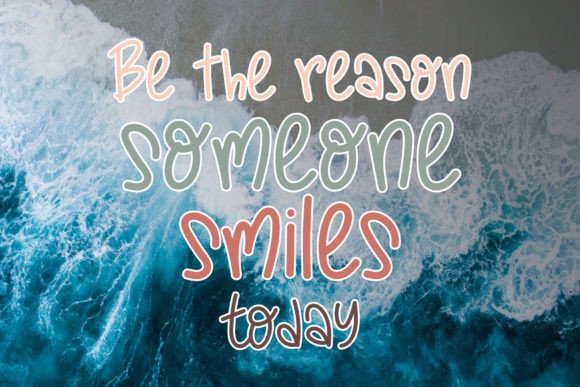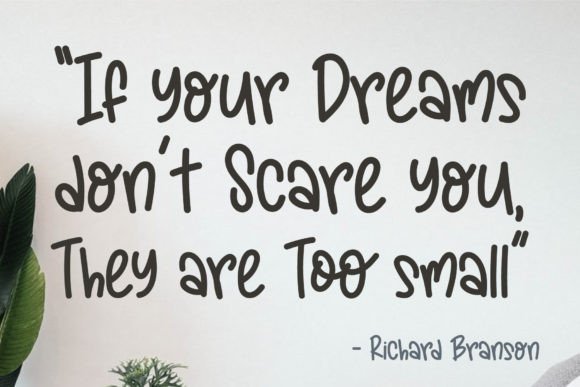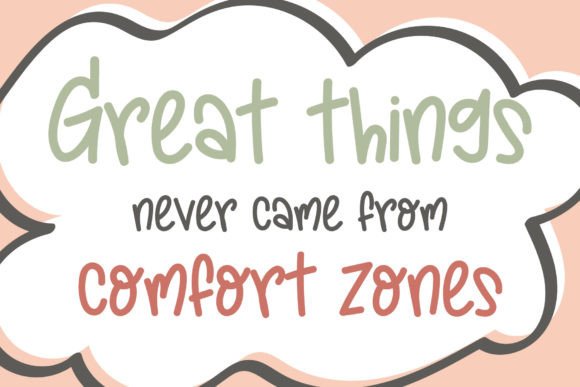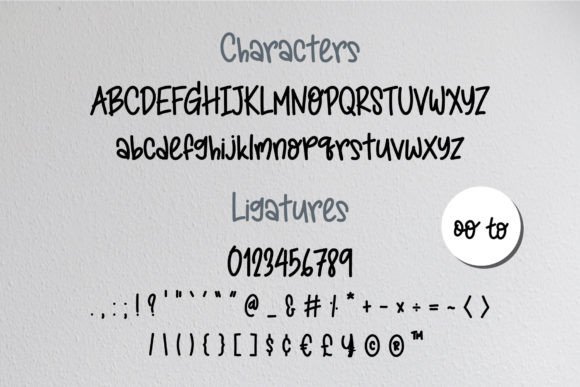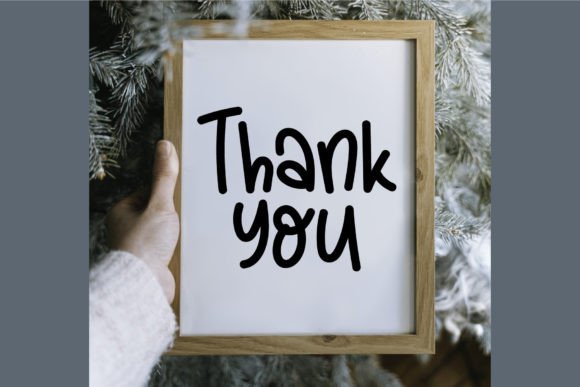
Introduction to Good Night Font
Good Night is a simple and joyful handwritten font.
Its casual charm makes it appear wonderfully down-to-earth, readable, and, ultimately, incredibly versatile This will look outstanding in any context, whether itโs being used on busy backgrounds or as a standalone headline.
Key Features of Good Night Font